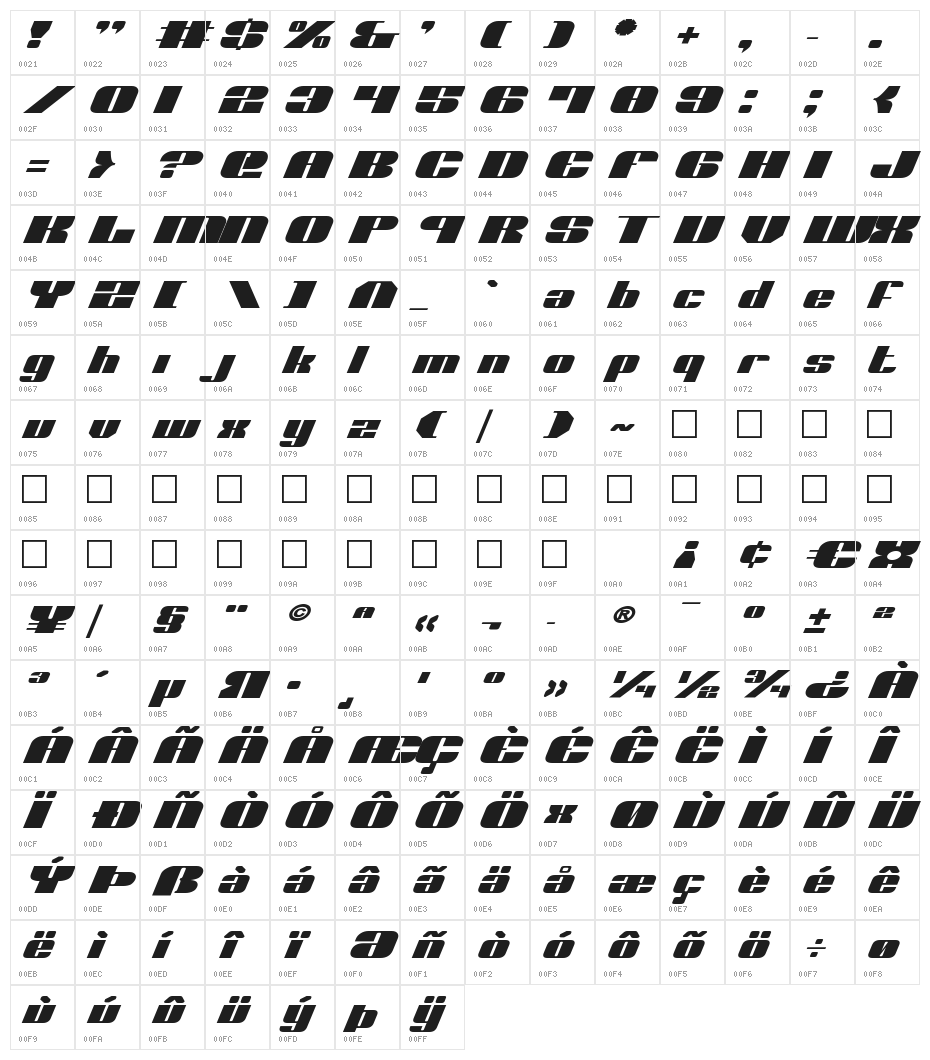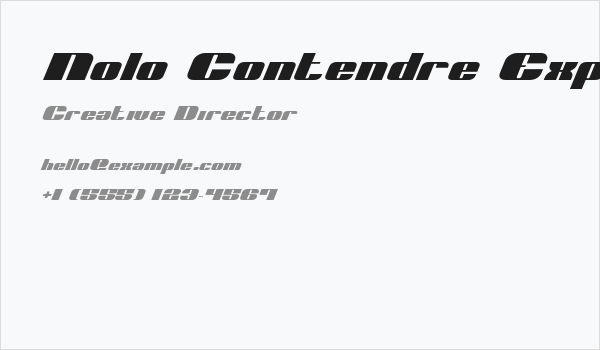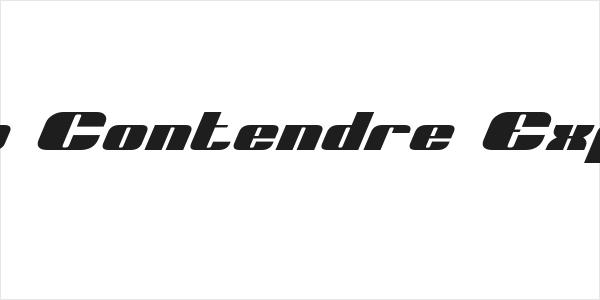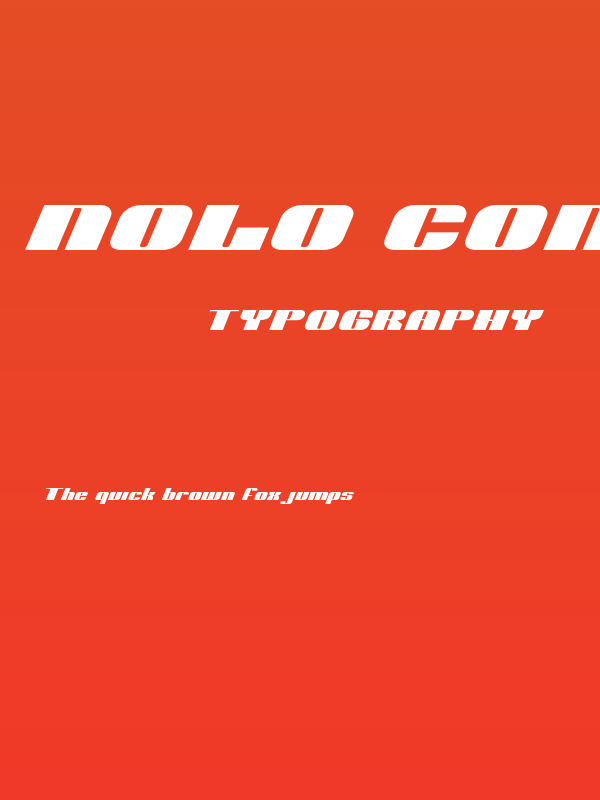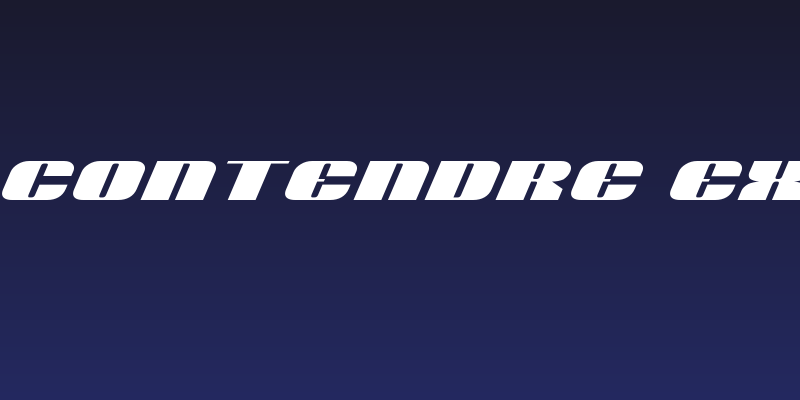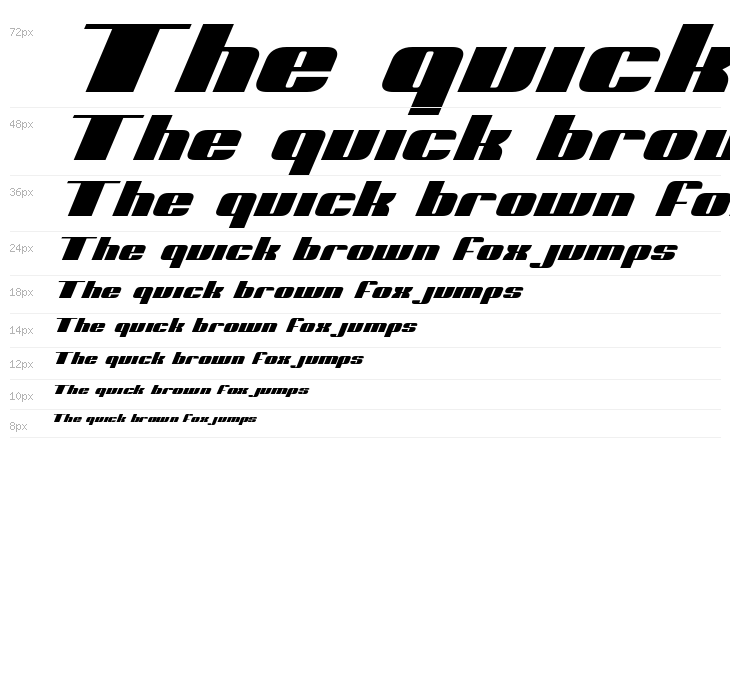
Nolo Contendre ExpItal Font
Nolo Contendre ExpItal Description
This font features a bold and dynamic style with a distinct slant, giving it an italicized appearance. The characters are wide and have a strong presence, making them suitable for impactful designs. The uppercase and lowercase letters maintain a consistent style, with sharp edges and a futuristic feel. The numbers and special characters are designed to match the boldness of the alphabet, ensuring a cohesive look across all text elements. The font's unique style is ideal for projects that require a modern and assertive aesthetic.